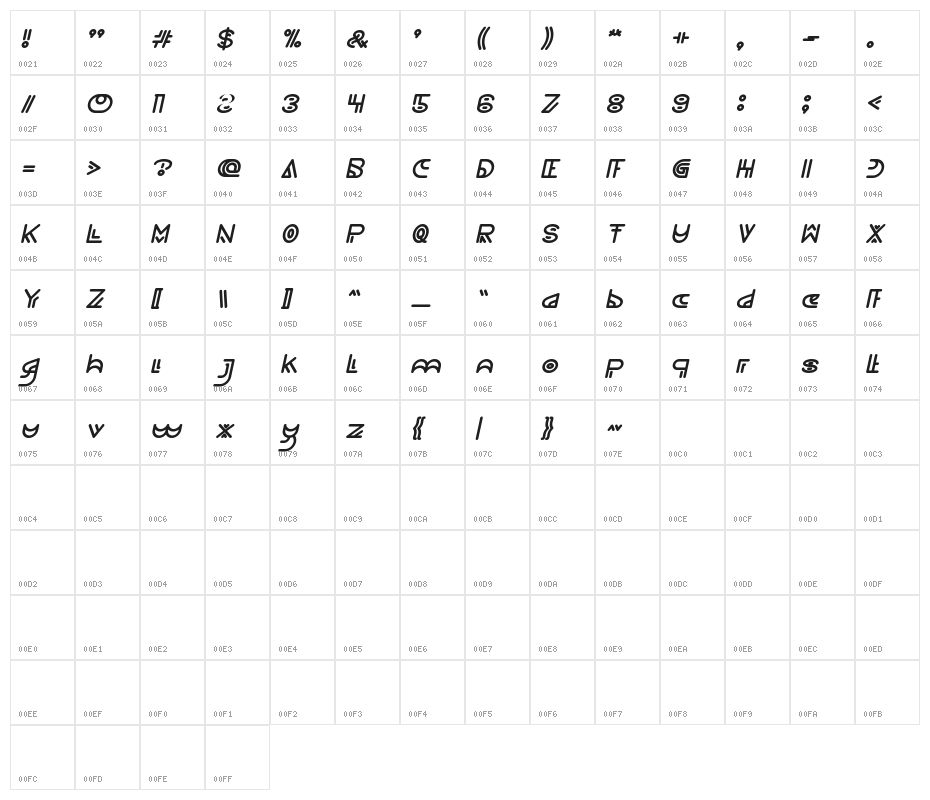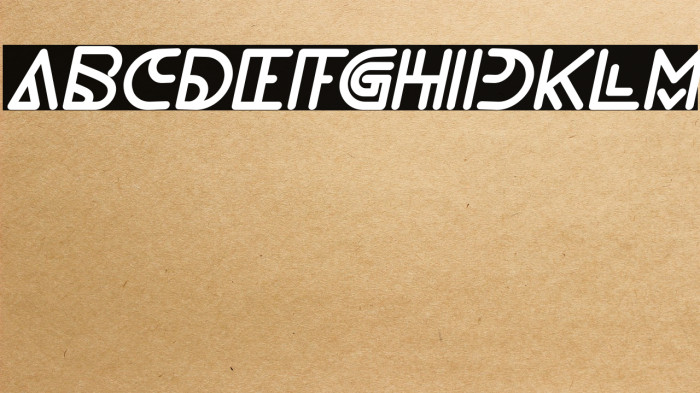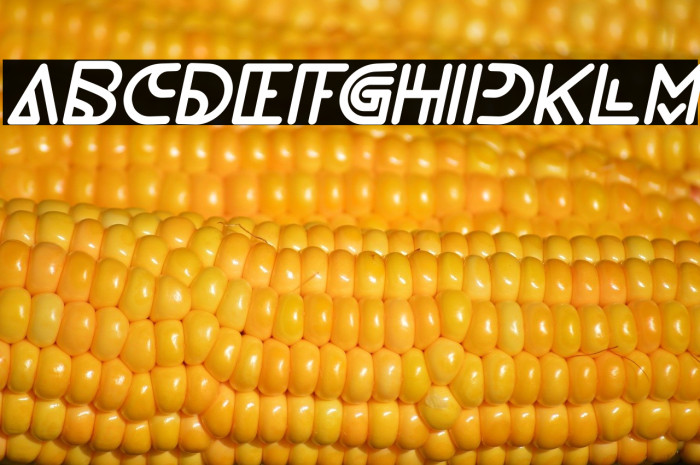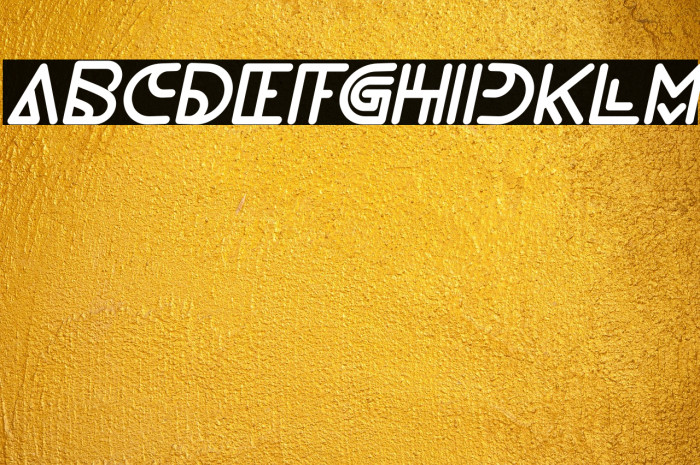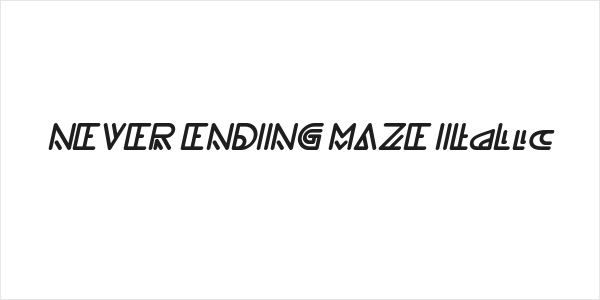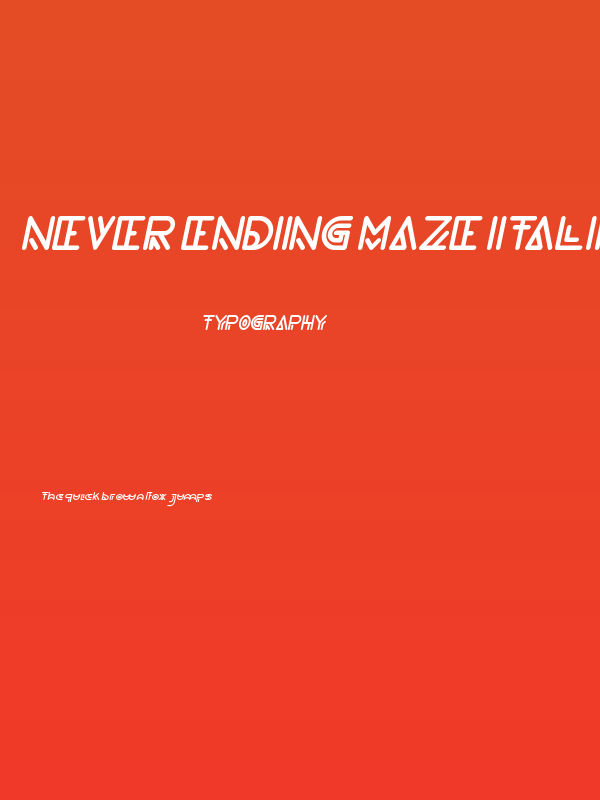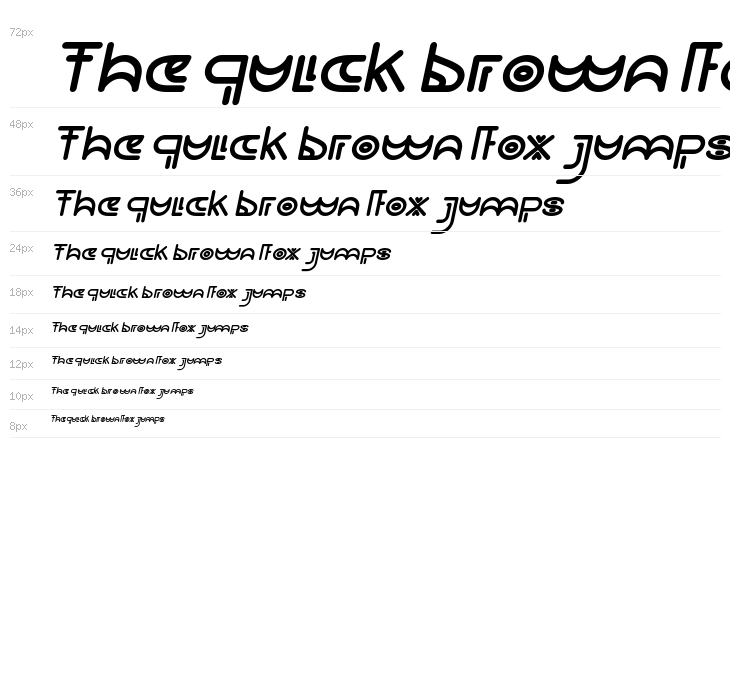
NEVER ENDING MAZE Italic Font
NEVER ENDING MAZE Italic Description
This font features a futuristic and geometric design with a unique, maze-like appearance. The characters are constructed with bold, continuous lines that create a sense of movement and flow. The uppercase and lowercase letters maintain a consistent style, with angular and rounded elements blending seamlessly. Numbers and special characters follow the same design principles, ensuring uniformity across all glyphs. The italic slant adds a dynamic touch, enhancing the overall modern and innovative feel of the typeface. Its distinct style makes it stand out, making it ideal for creative and bold design projects.